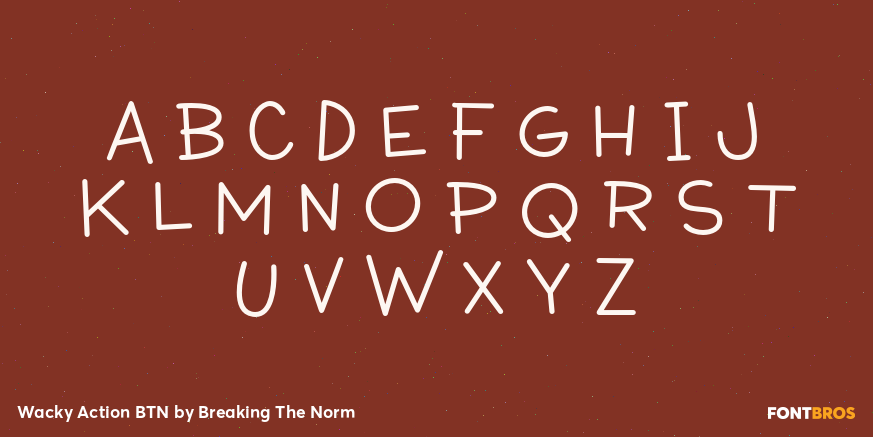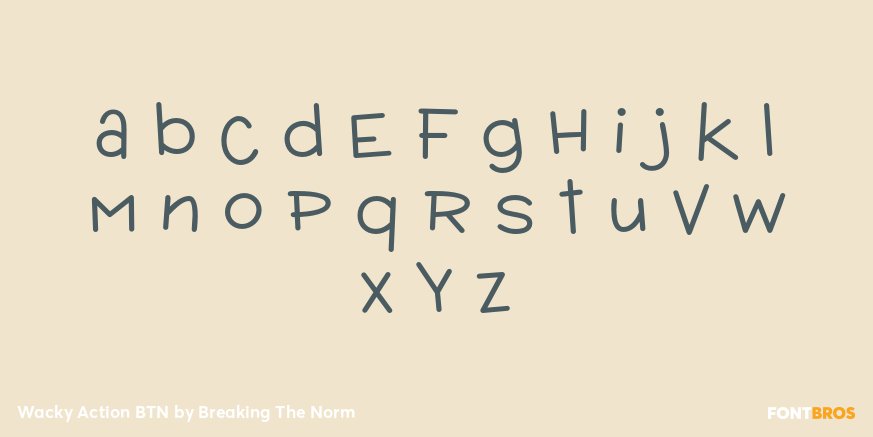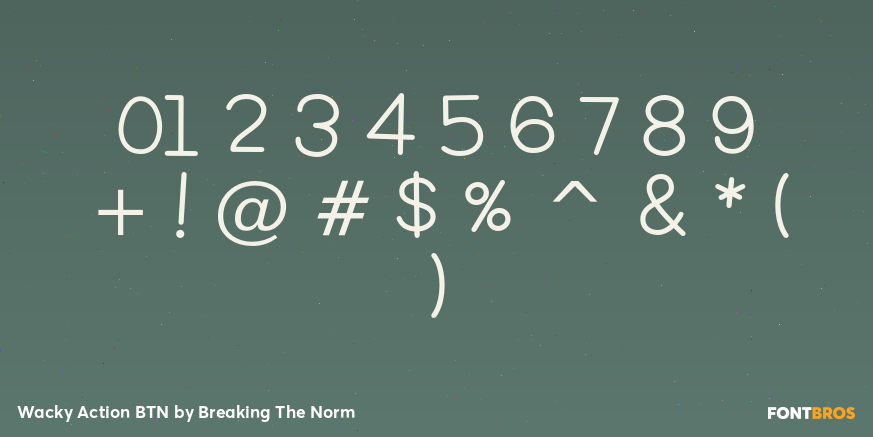
Wacky Action BTN
Font Family by Breaking The Norm
Wacky Action BTN is a playful display family built for fun, energetic typography. Its lively character and kid-friendly attitude make it a natural fit for children’s graphics, posters, packaging, party materials, classroom projects, comics, and playful branding. The core Light, Regular, and Bold styles provide a cheerful foundation, while the Square and Wavy companions add extra personality for more animated display work. Wacky Action BTN is a strong choice for designs that want to feel spirited, approachable, and full of cartoon-like charm.